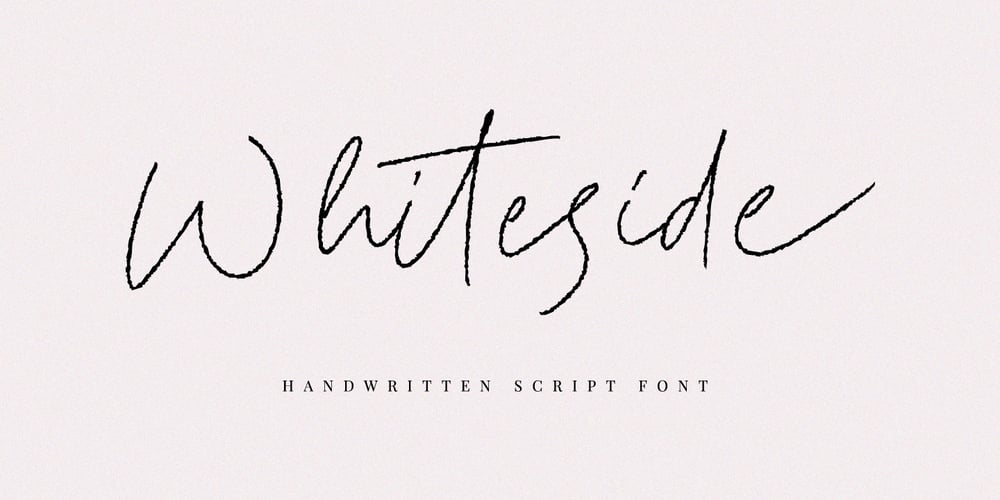
Whiteside
Whiteside font
Whiteside Font Family was designed by Prio Nurokhim Aji and published by Prioritype. Whiteside contains 1 styles and family package options. Whiteside – Handwritten Script Font.Beautiful handwritten script fonts are here to accompany your design projects. Accompanied by awesome textures to enrich the visual value of your design. Suitable for branding designs, logos, quotes and others. Features: Uppercase, Lowercase, Numeral, Punctuation, Multilingual, Ligatures, Alternates & Underline. Multilingual contained: Afrikaans, Albanian, Asu, Basque, Bemba, Bena, Breton, Catalan, Chiga, Cornish, Danish, Dutch, English, Estonian, Filipino, Finnish, French, Friulian, Galician, German, Gusii, Indonesian, Irish, Italian, Kabuverdianu, Kalenjin, Kinyarwanda, Luo, Luxembourgish, Luyia, Machame, Makhuwa-Meetto, Makonde, Malagasy, Manx, Morisyen, North Ndebele, Norwegian Bokmål, Norwegian Nynorsk, Nyankole, Oromo, Portuguese, Quechua, Romansh, Rombo, Rundi, Rwa, Samburu, Sango, Sangu, Scottish Gaelic, Sena, Shambala, Shona, Soga, Somali, Spanish, Swahili, Swedish, Swiss German, Taita, Teso, Uzbek (Latin), Volapük, Vunjo, Zulu. Thanks!Note: To access swash just type underscore + numeral (1-3).